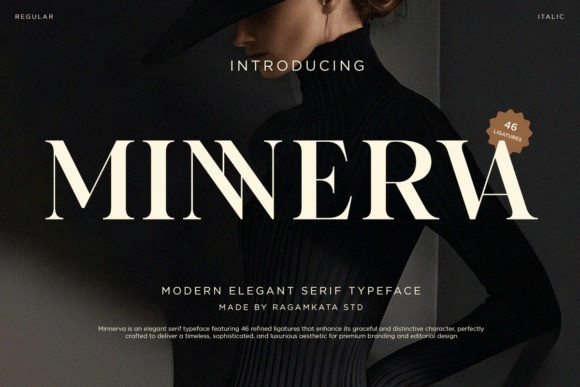
Minnerva Font
Minnerva Font is a modern elegant serif typeface designed to embody sophistication and timeless beauty. With its refined letterforms, high contrast strokes, and graceful proportions, it delivers a luxurious aesthetic that feels both classic and contemporary. Every detail is carefully crafted to create a strong yet elegant visual identity.
Perfect for luxury branding, magazines, logos, and premium packaging, Minnerva brings elegance to every project. With multilingual support and versatile styling options, it adapts effortlessly across global design needs while maintaining its distinctive, sophisticated character.